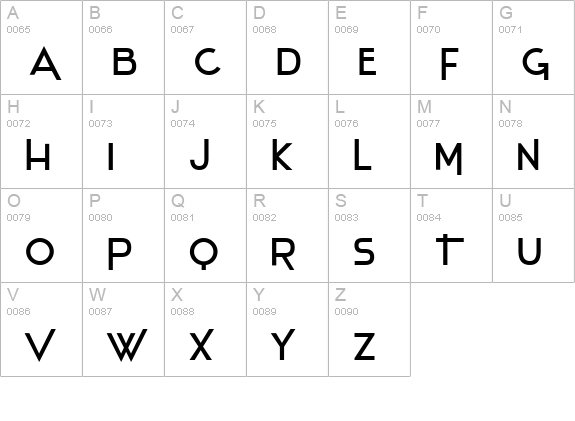
Stentiga Font Details
Stentiga is a modern and stylish font that exudes elegance and sophistication. Its sleek lines and clean design make it perfect for a wide range of projects, from branding to packaging and everything in between. The versatility of Stentiga allows it to be used for both display purposes and body text, making it a truly versatile option for designers looking to make a statement. What sets Stentiga apart is not only its aesthetic appeal, but also its accessibility. This font is available for free download at FontsMarket.com, making it easy for anyone to incorporate its beauty into their work. Whether you're a seasoned professional or just starting out, Stentiga is a valuable addition to your font library. Don't miss out on the opportunity to elevate your designs with this stunning typeface - download Stentiga today and let your creativity soar.